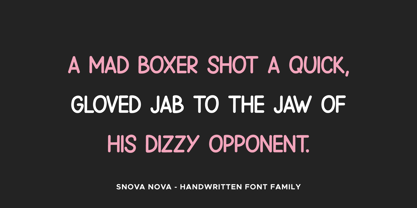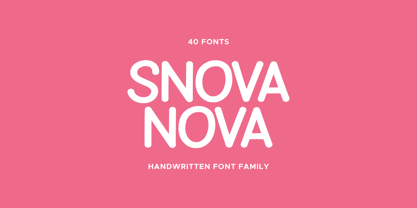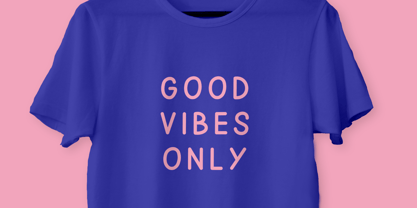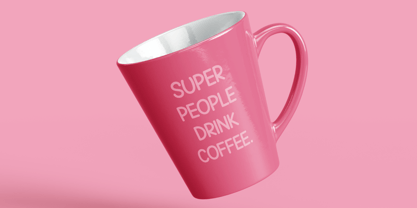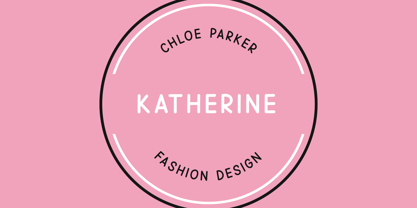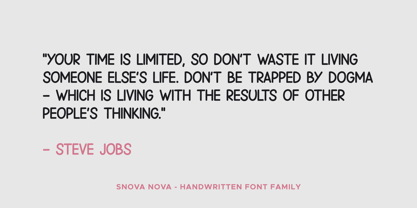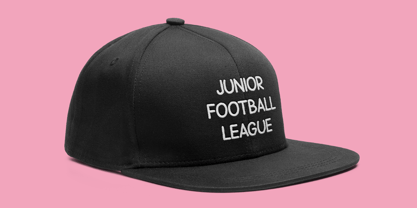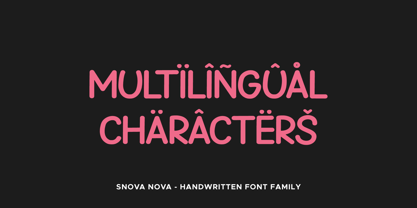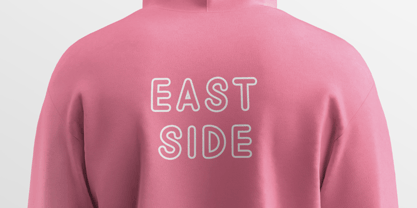
Snova Nova is a playful handwritten sans serif typeface designed to bring warmth, personality, and a childlike charm to any project. With its soft curves, irregular strokes, and natural flow, it captures the spontaneity of hand-drawn lettering while maintaining excellent readability.
This versatile family includes a wide range of expressive styles such as Brush, Cut, Ink, Grit, Rough, Rust, Scratch, Worn, and Eroded—each offering its own unique texture and mood. From clean and smooth to distressed and gritty, Snova Nova adapts effortlessly to both polished and raw design aesthetics.
With matching italics and outline versions for every style, the typeface provides endless layering possibilities, making it perfect for eye-catching headlines, playful branding, children’s products, posters, packaging, and social media graphics.
Supporting a broad Latin language set, Snova Nova is built for global use while keeping its friendly and approachable tone consistent across all scripts.
Whether you’re designing something fun, casual, or creatively imperfect, Snova Nova delivers a lively and authentic handwritten feel.
Snova Nova